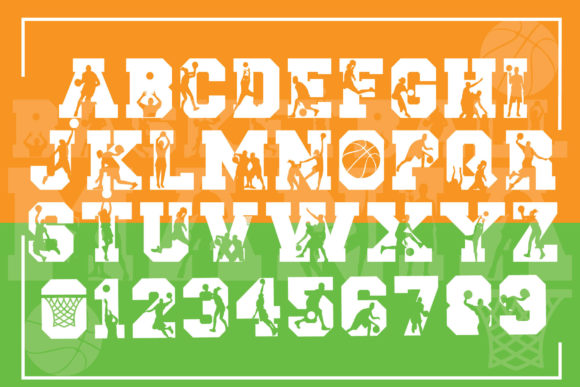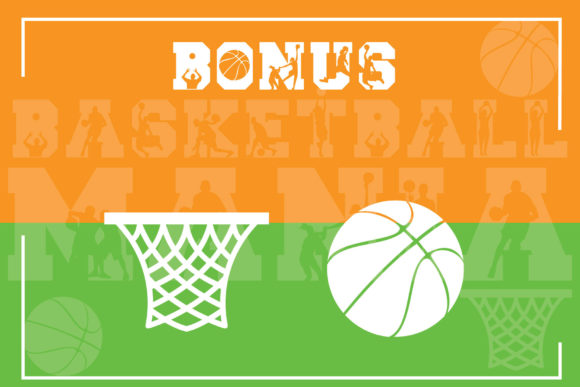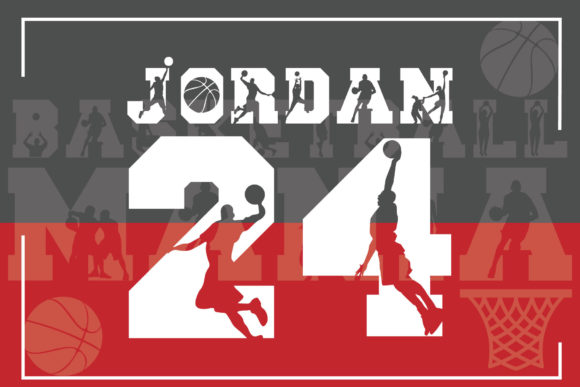
Basketball Fever Just Got a Whole Lot Cooler
Have you ever been working on a design project and suddenly, you’re hit with a burst of creative energy? The colors, the shapes, the typography – everything just comes together in perfect harmony. That’s exactly what happened to us when we discovered the Basketball Mania Font. This cool and bold decorative font is the perfect addition to any design related to basketball, and we can’t wait to share it with you.
Whether you’re a graphic designer, a sports enthusiast, or simply someone who loves basketball, the Basketball Mania Font is a valuable tool in your creative arsenal. Its unique style and flair will elevate your designs to the next level, making them stand out from the crowd. With the Basketball Mania Font, you’ll be able to create eye-catching posters, jerseys, and even social media graphics that will leave everyone feeling like a champion.
- Unique Characteristics: The Basketball Mania Font features a dynamic, energetic, and playful design, with bold lines and stylized characters that evoke the excitement of basketball.
- Style Options: The font family includes multiple styles, such as Regular, Bold, Italic, and Bold Italic, allowing designers to choose the perfect look for their project.
Basketball Mania Font Review
As a designer, I was excited to dive into the Basketball Mania Font, hoping to find a unique and captivating font for sports-related projects. Here’s my honest review:
- ✨ Unique and playful design: The font’s energetic vibe is perfect for capturing the excitement of basketball and other high-energy sports.
- ✨ Customizable: The font’s bold and condensed style makes it easy to customize and pair with other fonts for a dynamic look.
- ✨ High-quality: The font’s crisp and clear design ensures that text remains readable, even at small sizes.
- ⚠️ Limited flexibility: The font’s bold and condensed design can make it difficult to use in situations where a more traditional or formal font is needed.
- ⚠️ Limited character set: The font’s character set is limited, which may not be ideal for projects that require a wide range of special characters or languages.
Overall, I think the Basketball Mania Font is a great choice for sports-related projects or any project that needs a bold and energetic vibe. While it may have some limitations, its unique design and high-quality make it a solid addition to any designer’s toolkit.
Tips for Getting the Most Out of Basketball Mania Font
Use Basketball Mania Font for sports-themed designs, such as basketball team logos, posters, and jerseys.
Experiment with different font sizes and styles to create a dynamic and energetic look.
Combine Basketball Mania Font with other sports-themed graphics and images to create a cohesive and engaging design.
Basketball Mania Font is ideal for:
Basketball team logos and branding
Posters and flyers for basketball games and events
Sports-themed merchandise, such as jerseys and hats
Alternatives to Basketball Mania Font
1. Futura Condensed Extra Bold
Futura Condensed Extra Bold is a bold, condensed sans-serif font that is ideal for headlines and titles. It has a similar geometric feel to Basketball Mania Font, but with a more modern and sleek appearance. Use it for bold statements and eye-catching headlines.
Comparison to Basketball Mania Font: Futura Condensed Extra Bold is more geometric and modern, while Basketball Mania Font has a more playful and dynamic feel.
2. Rockwell Bold
Rockwell Bold is a classic serif font that is perfect for titles and headlines. It has a sturdy and solid feel that is similar to Basketball Mania Font’s bold and dynamic appearance. Use it for titles and headings that need a touch of elegance.
Comparison to Basketball Mania Font: Rockwell Bold is more classic and elegant, while Basketball Mania Font is more playful and dynamic.
3. Akzidenz-Grotesk Extra Bold
Akzidenz-Grotesk Extra Bold is a bold, sans-serif font that is ideal for titles and headlines. It has a similar industrial feel to Basketball Mania Font, but with a more modern and sleek appearance. Use it for bold statements and eye-catching headlines.
Comparison to Basketball Mania Font: Akzidenz-Grotesk Extra Bold is more industrial and modern, while Basketball Mania Font has a more playful and dynamic feel.